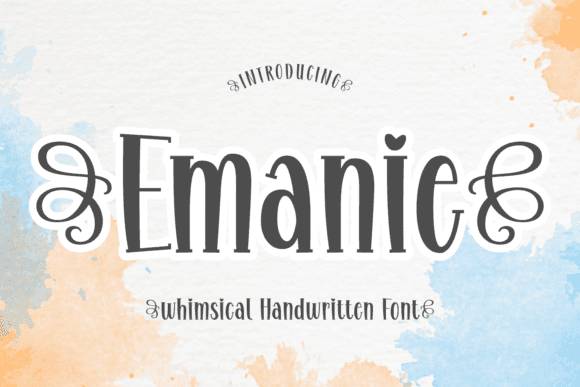
Emanie Font for Headlines, Posters and Branding Projects
The Emanie Font is a modern, display-style typeface built for high-visibility design. Its bold structure and eye-catching rhythm make it perfect for use in headlines, advertising materials, branded packaging, and impactful poster layouts.
As a font entity, Emanie strengthens design communication in both digital and physical formats. Whether used in uppercase for a powerful title or mixed case for stylized brand messaging, this typeface supports strong typographic hierarchy and creative control.
- Strong letterforms perfect for bold statements
- Optimized for readability and visual punch
- Works great with modern and urban aesthetics
Q: What kind of font is Emanie?
A: Emanie is a modern display font, perfect for headlines, posters, and strong branding visuals.
Q: Is this font suitable for use in logos?
A: Absolutely. Its bold and clean structure makes it excellent for impactful logo design.
| Feature | Emanie Font | Rounded Display Font | Minimal Sans Font |
| Font Style | Bold display serif/sans hybrid | Soft-edge decorative | Clean geometric sans serif |
| Best Use | Headlines, branding, posters | Kids products, friendly graphics | Web UI, clean branding |